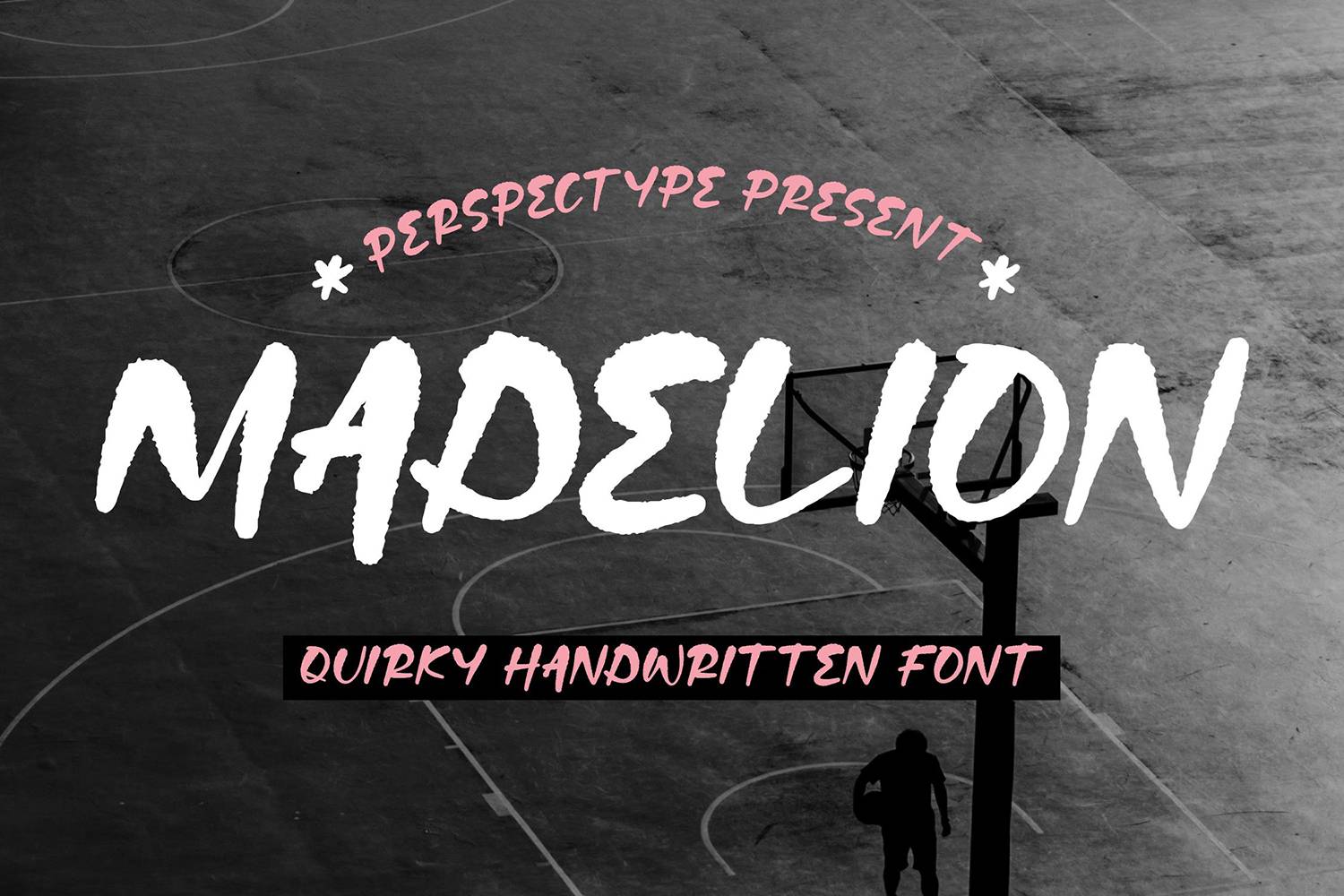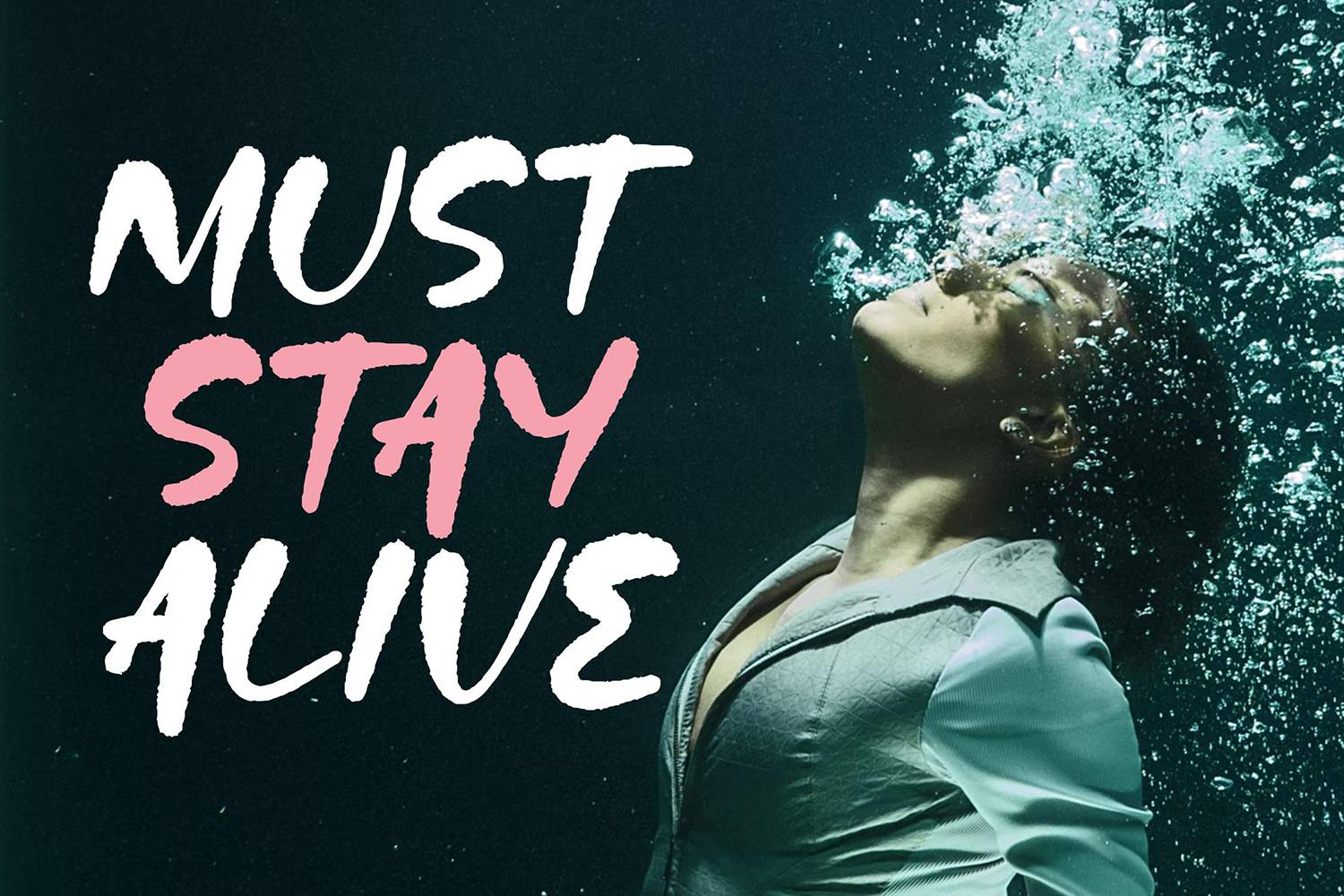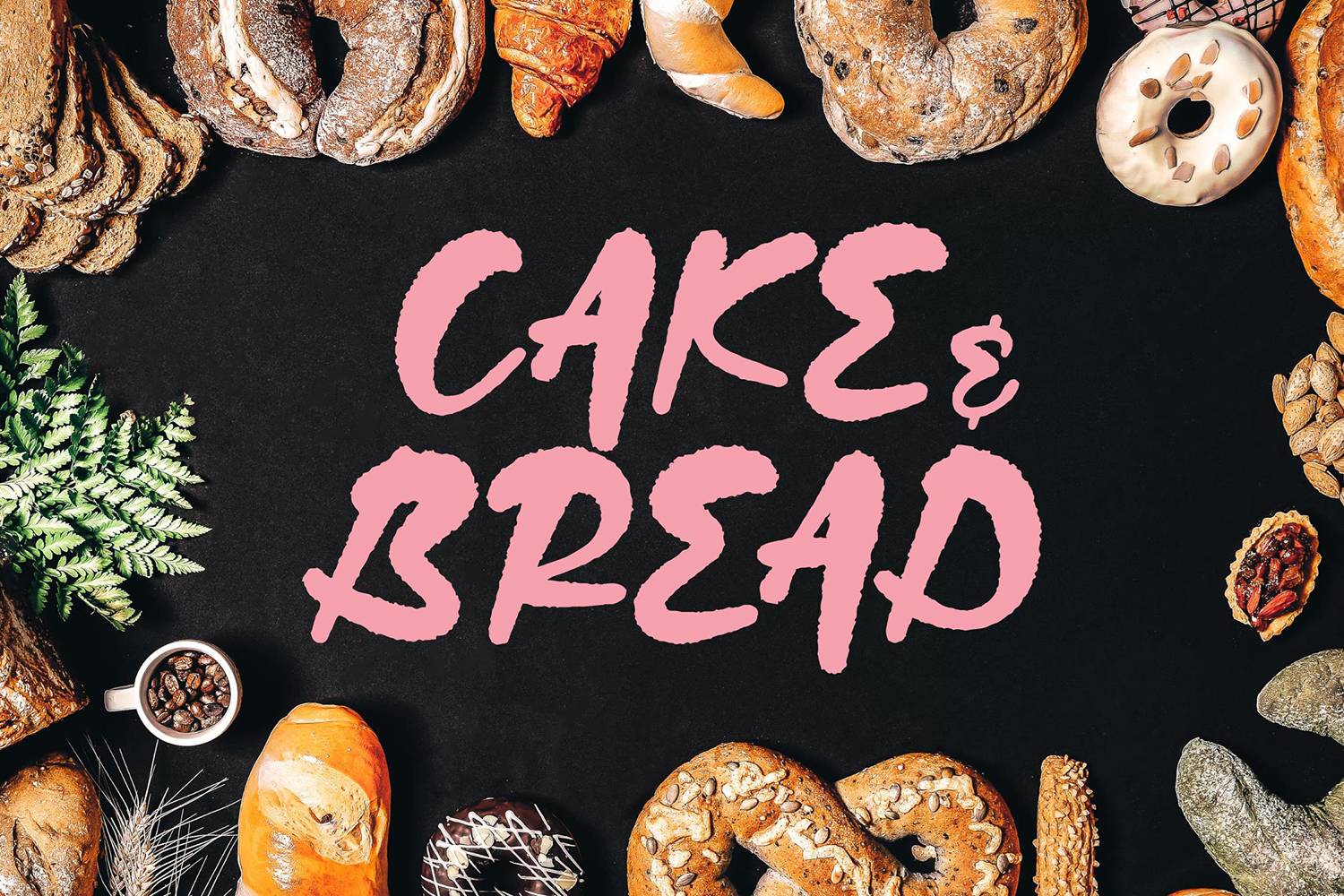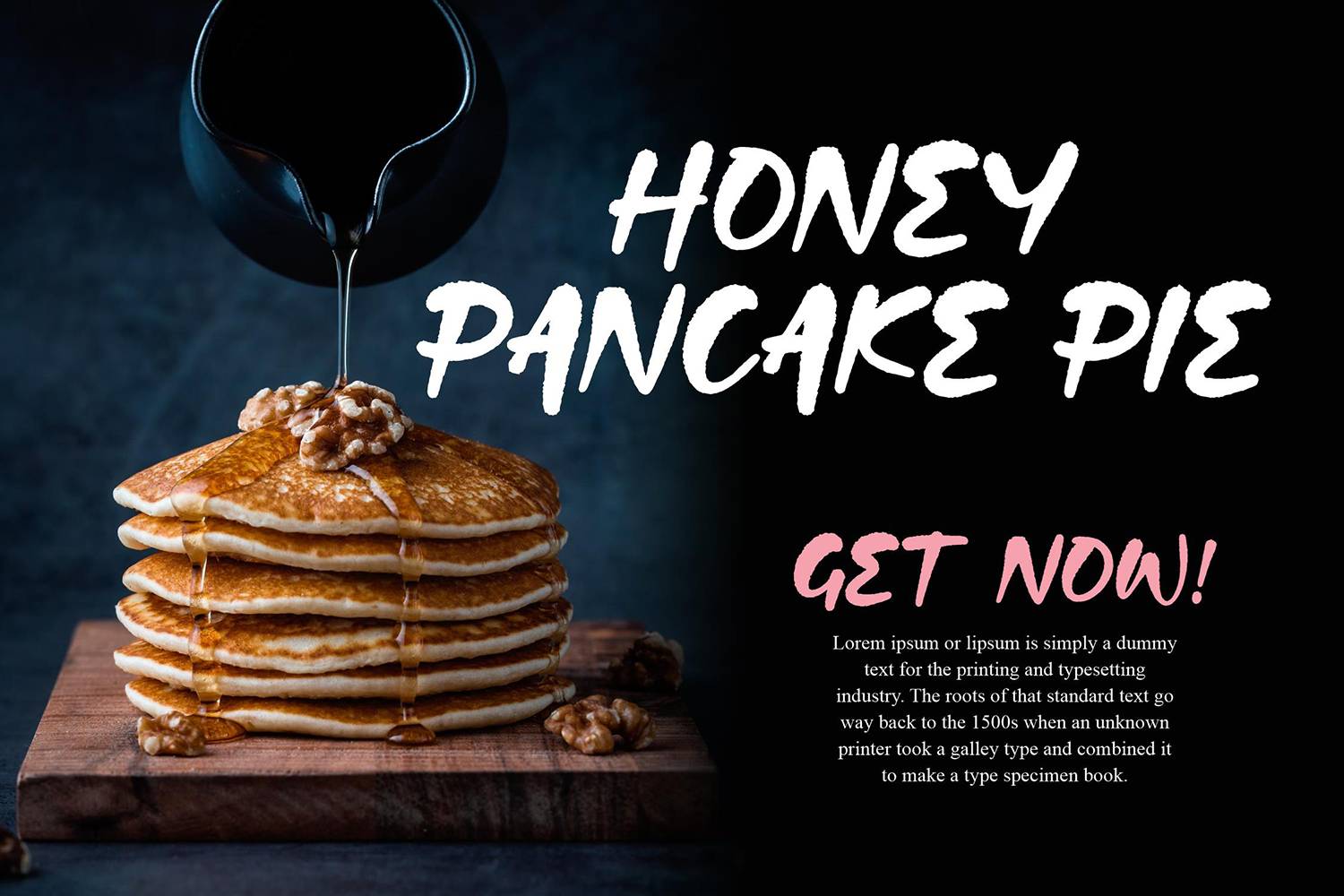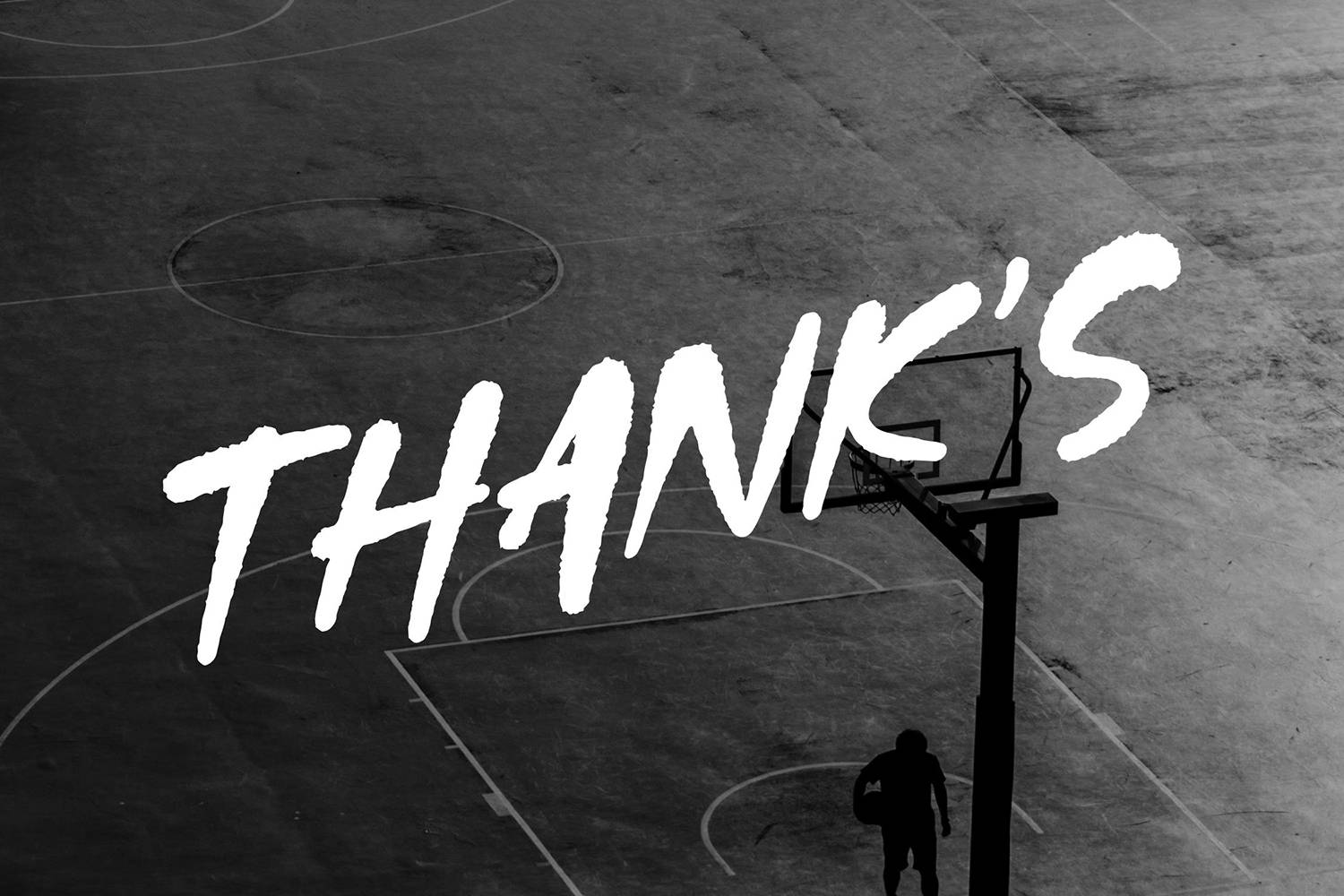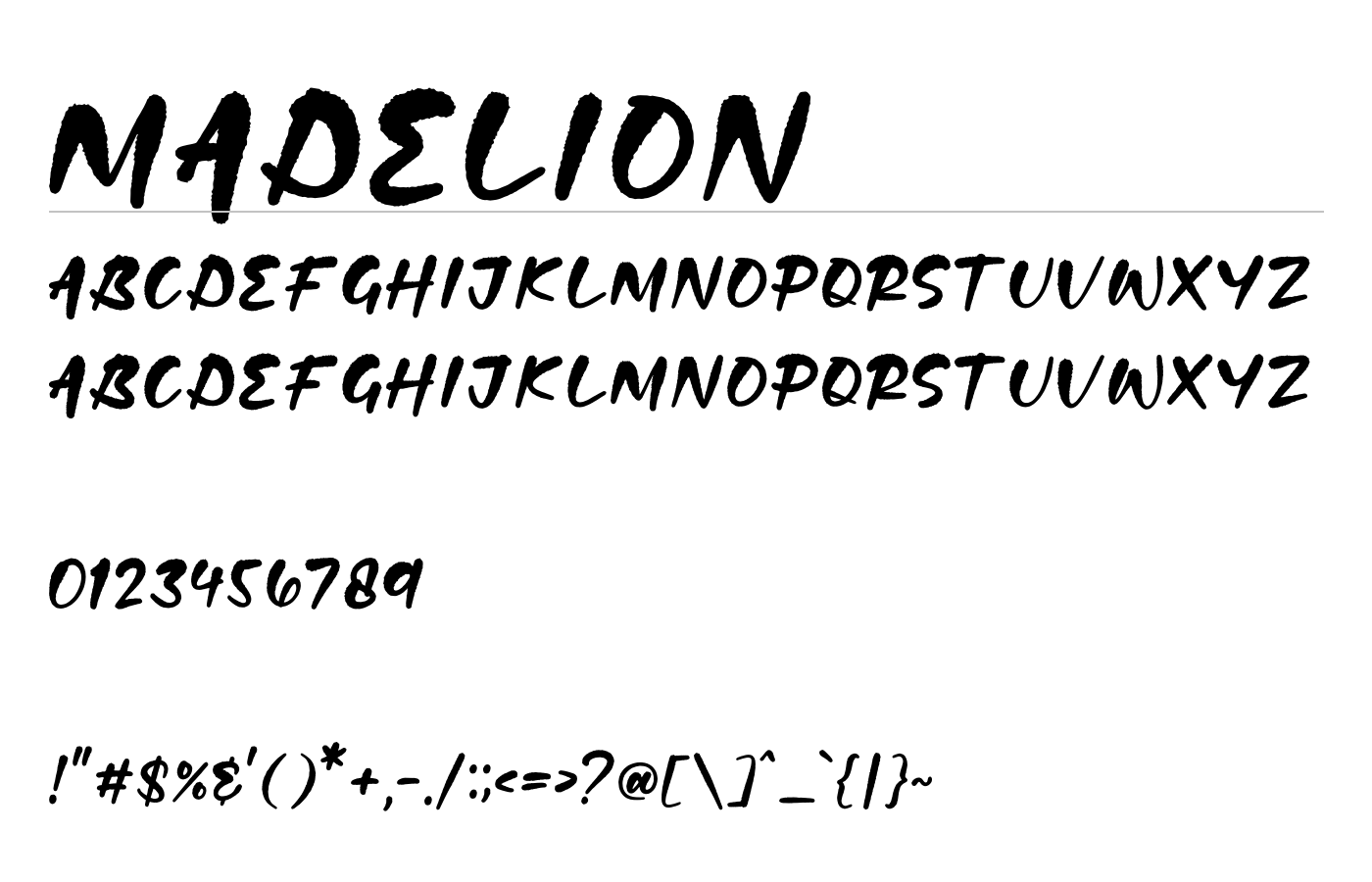
Madelion is a casual, brush-script font that captures a lively and spontaneous handwritten style with its bold, slightly irregular strokes and textured edges. Its energetic, organic feel makes it perfect for creative projects, branding, or invitations that seek a personal, approachable touch. This font works especially well in headlines and logos where a dynamic, informal personality is desired.
Madelion Font
About Madelion Font